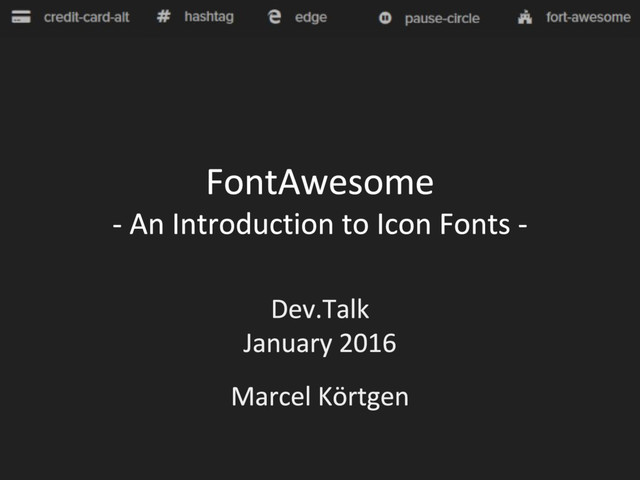
FontAwesome - An Introduction to Icon Fonts
FontAwesome - An Introduction to Icon Fonts
Introducing icon fonts (mainly FontAwesome). Motivating the icon fonts not only in web but also desktop development.
1. Why Icon Fonts? Images are great but they... •...add file
weight & slow to load •...don’t scale well •...are difficult to manipulate → Sometimes the best solution for using images in a responsive design is not to use an image.
2. What are Icon Fonts? •Icon fonts are just fonts •Instead
of letters they contain symbols http://vanseodesign.com/web-design/icon-fonts/
3. Advantages of Icon Fonts •Can have transparent knockouts •Have good
browser support in general •Can use text based css (still needs better support) ...
4. Advantages of Icon Fonts •Can be designed on the fly
(by making changes on :hover, etc.) •Can do everything image icons can do (change opacity, rotate, etc.) •Have smaller file sizes since they contain fewer characters than full typeface
5. Microsoft “Metro” (2012) •Mostly associated with Windows 8 •MS “redesigned”
all content & products http://trentwalton.com/2012/10/03/a-new-microsoft-com/
6. Microsoft “Metro” (2012) •Mostly associated with Windows 8 •MS “redesigned”
all content & products http://trentwalton.com/2012/10/03/a-new-microsoft-com/
7. Microsoft “Metro” (2012) •Mostly associated with Windows 8 •MS “redesigned”
all content & products http://trentwalton.com/2012/10/03/a-new-microsoft-com/
8. Microsoft “Metro” (2012) •Big part of this was an icon
font → Segoe UI Symbol http://trentwalton.com/2012/10/03/a-new-microsoft-com/
9. What’s the Downside? •Need to be rendered monochrome • or
with css3 gradients •You’re restricted to what’s available • unless you want to create your own •Creating them can be time consuming
10. What’s the Downside? •Need to be rendered monochrome → Use
appropriately! These are icons! •You’re restricted to what’s available → What’s available will grow! •Creating them can be time consuming → Just choose from what’s available!
11. FontAwesome •Originally designed for “Bootstrap” (Twitter) •Most popular •pick a
random website •odds are it uses http://fontawesome.io (90%)
12. Summary •Not appropriate for all scenarios •But really awesome when
they are, e.g. •scale and maintain proportion •easy to manipulate •Not only for the web •awesome-inc/FontAwesome.Sharp (C#) •cathive/fonts-fontawesome (JavaFx)